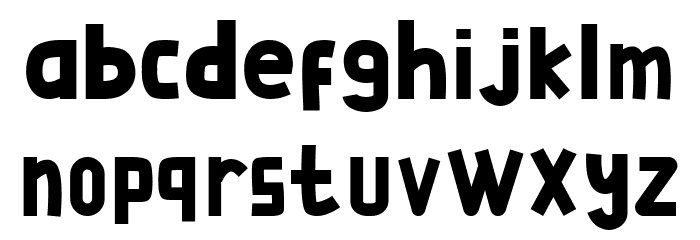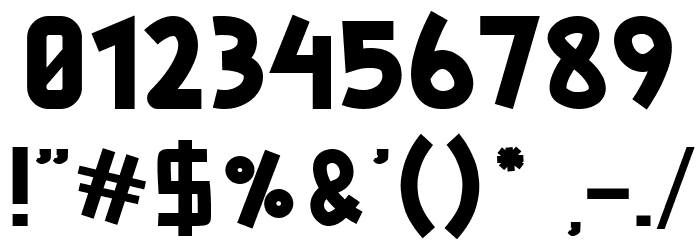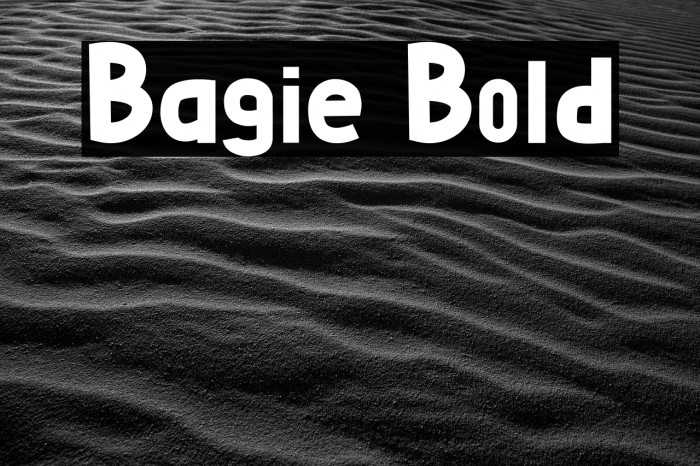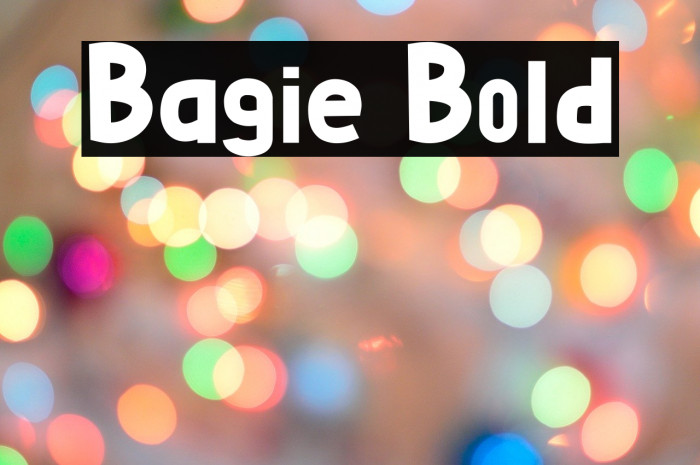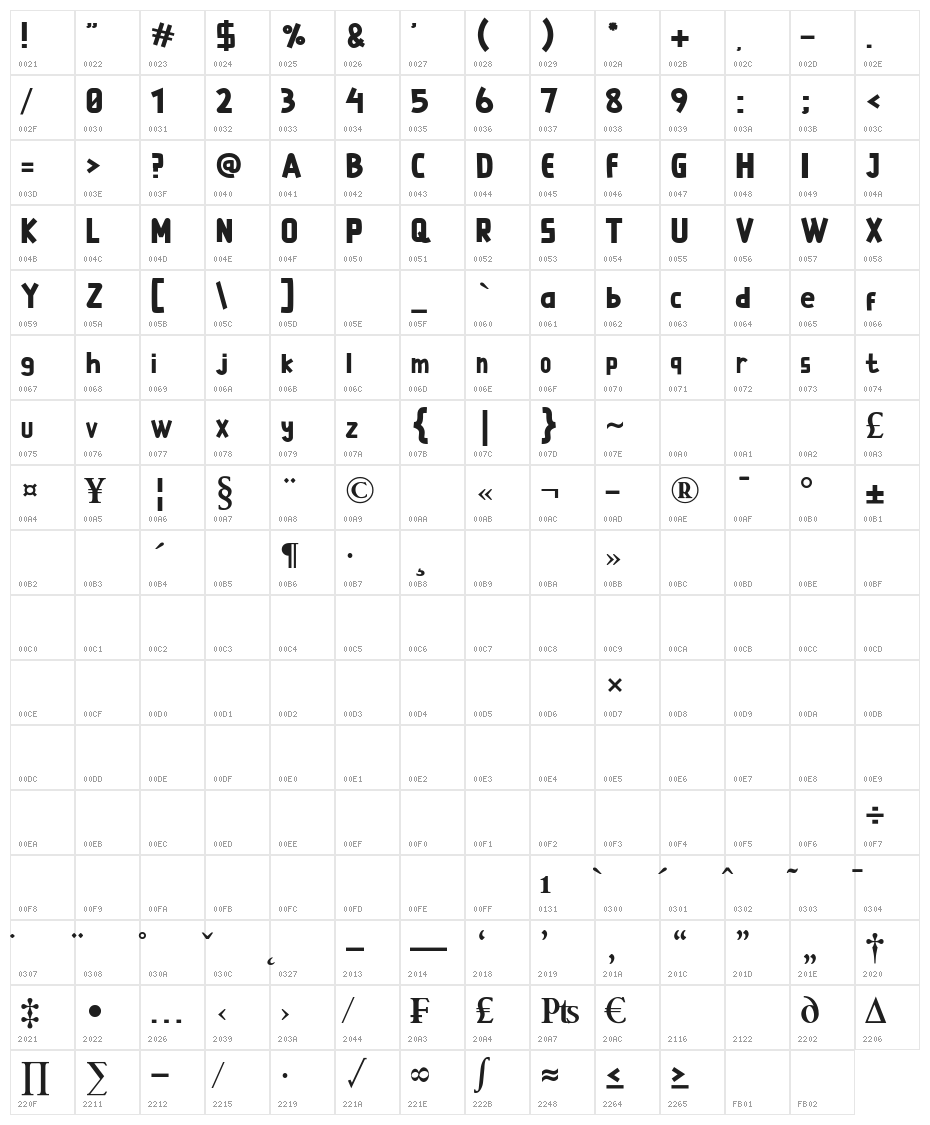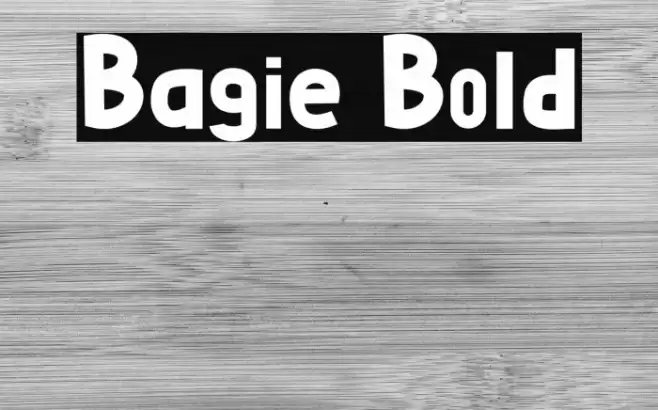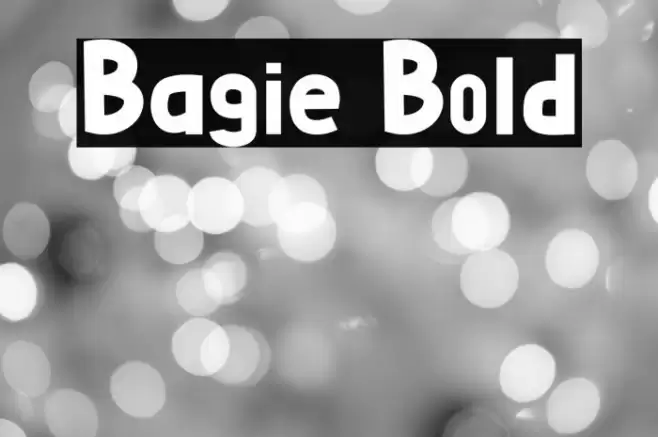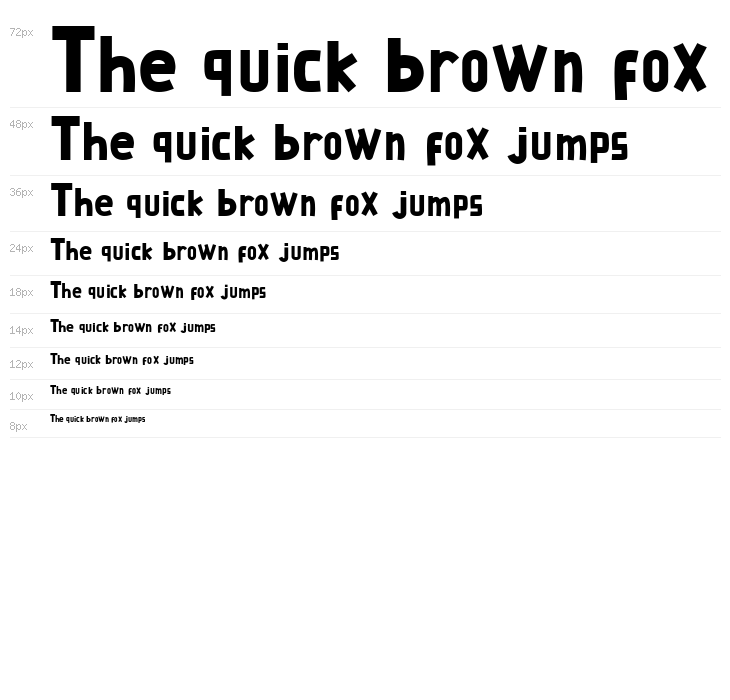
Bagie Bold Font
This font exhibits a bold and playful style, characterized by its thick strokes and slightly rounded edges. The uppercase letters are robust and commanding, while the lowercase letters maintain a consistent weight, offering a harmonious balance. The numerals are clear and distinct, ensuring readability. Special characters are crafted with the same boldness, making them stand out effectively. The overall design is modern and slightly quirky, suitable for projects that require a strong visual impact.
A bold, playful font with thick strokes and rounded edges.
- Proposed Projects: Ideal for branding, posters, headlines, and any design needing a bold statement.